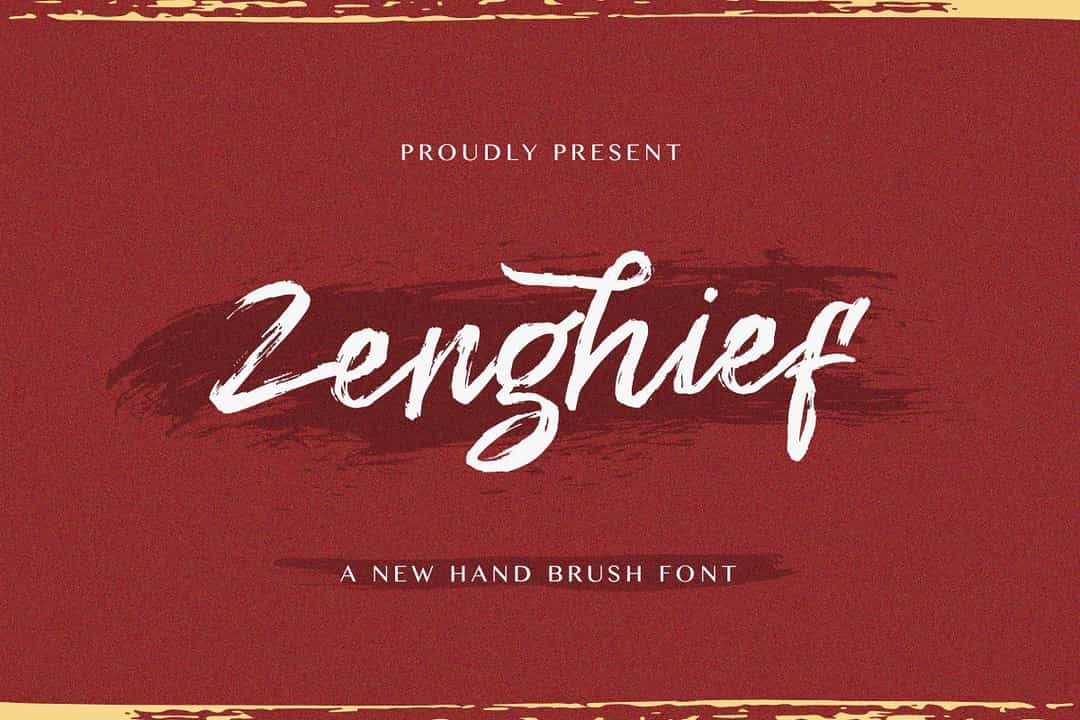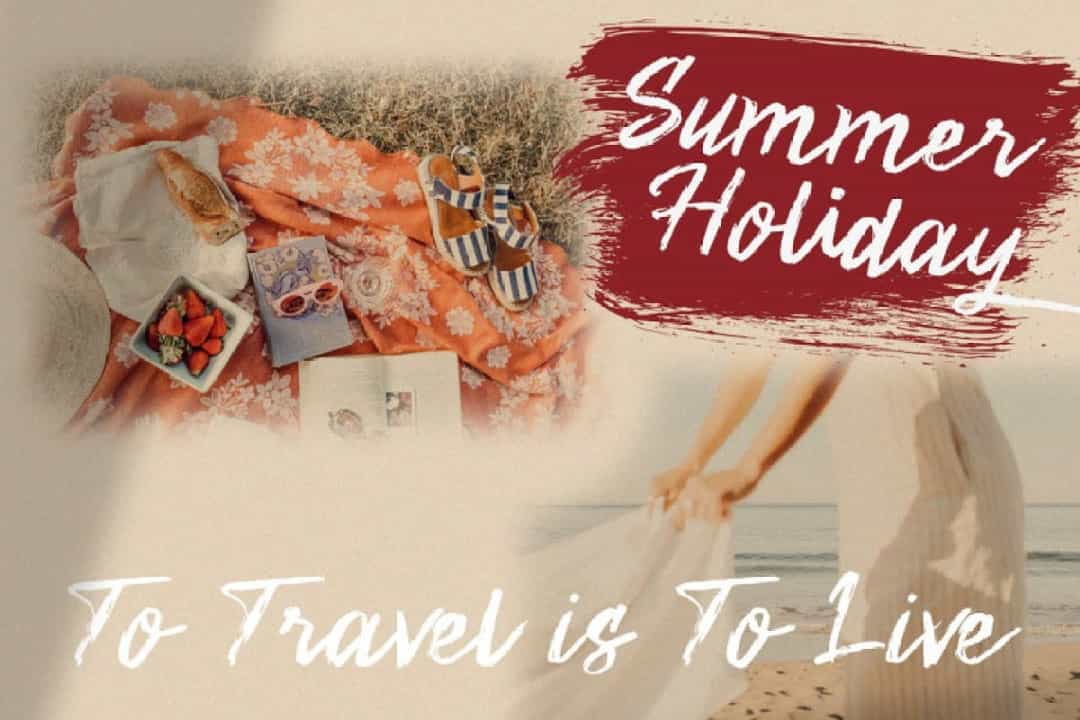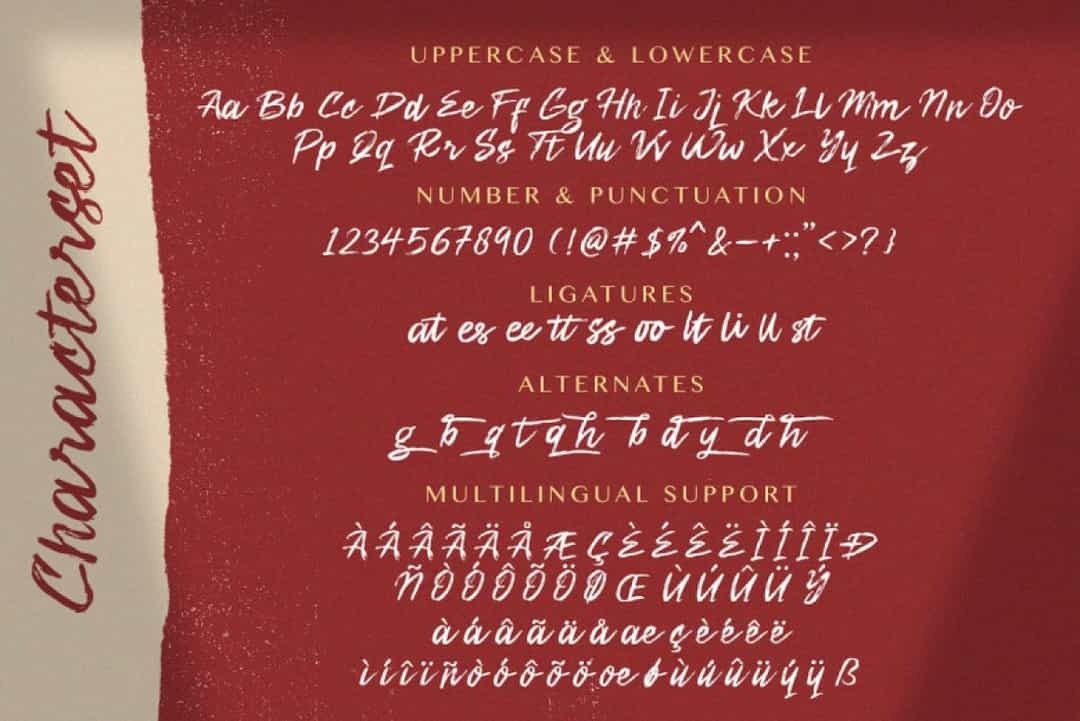
Zenghief is seen to be a script font in this New York which has Modern Hand brush style. The main given typeface called Zenghief is created based on the digital hand-writing and it makes the font look very authentic and quite different from the others.